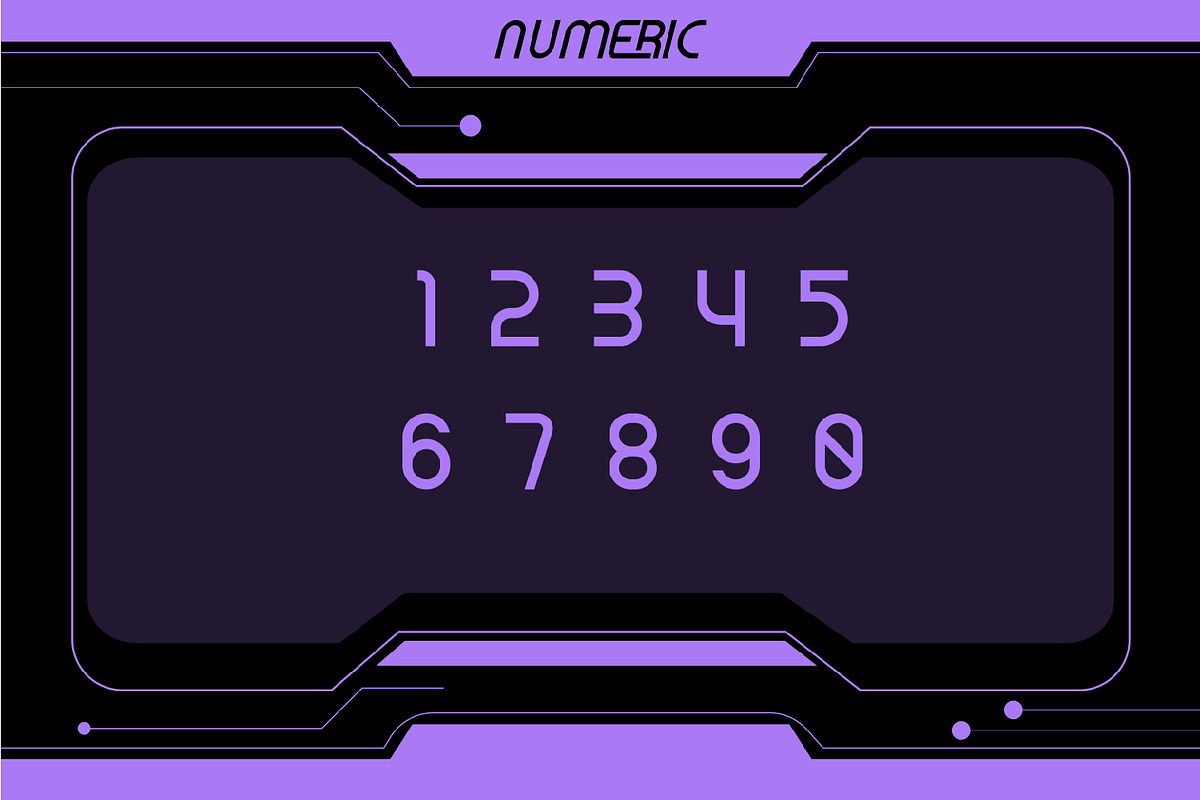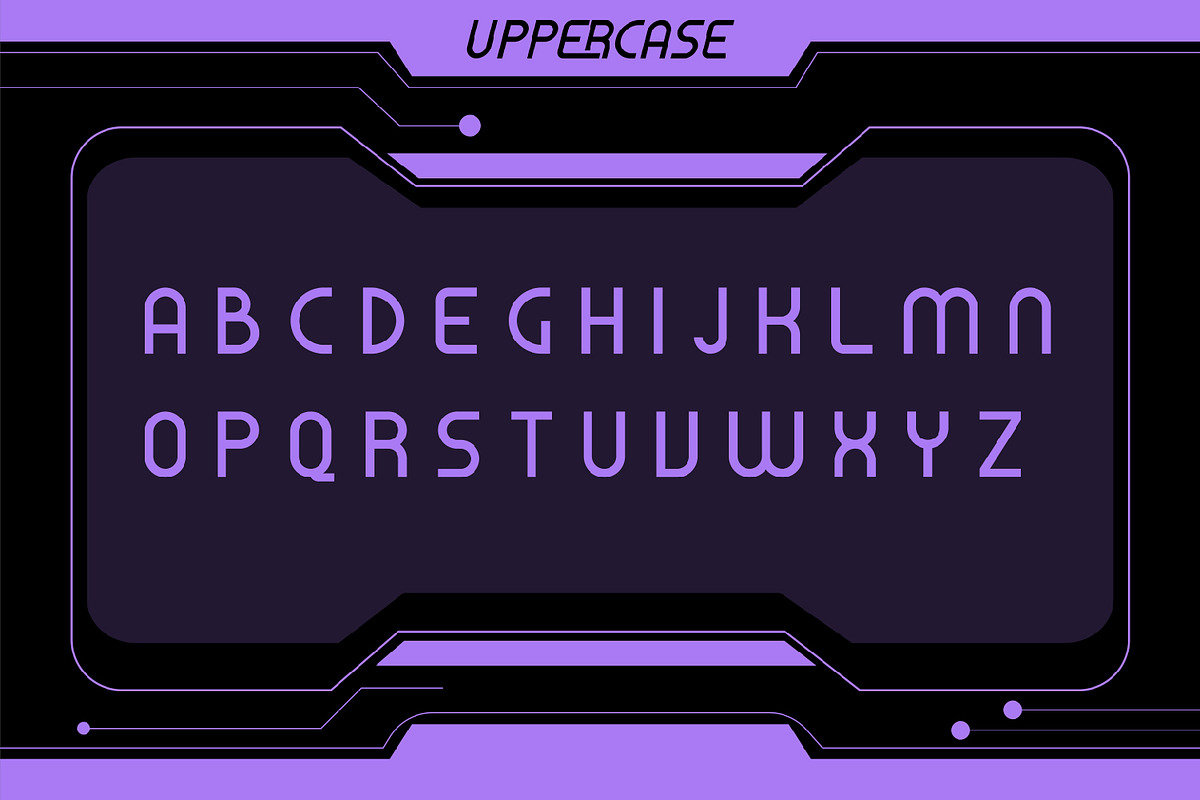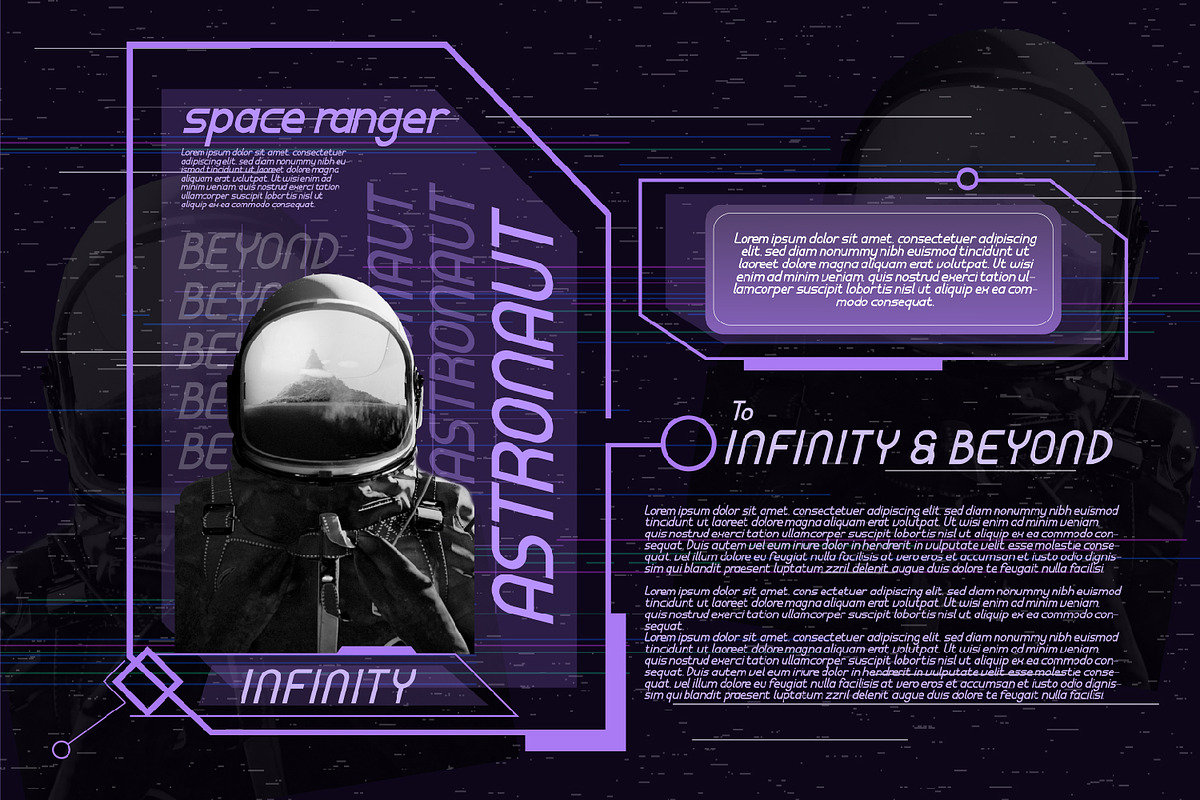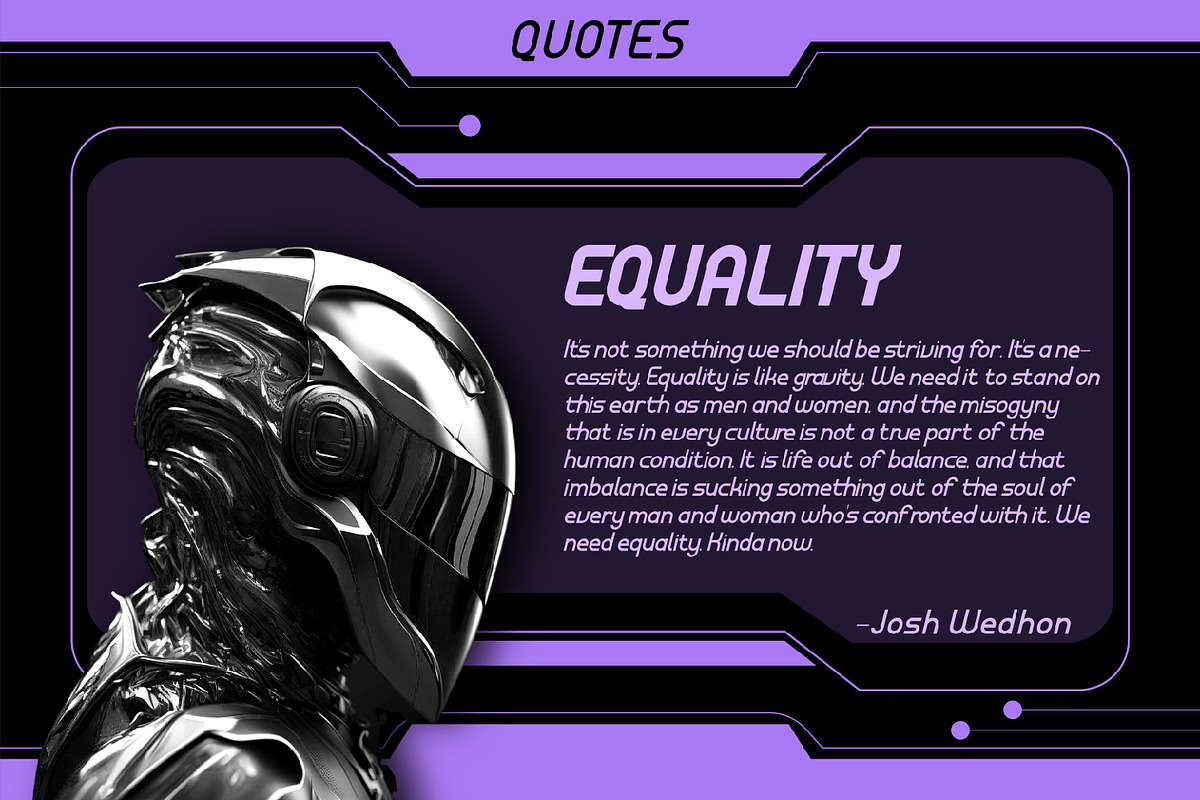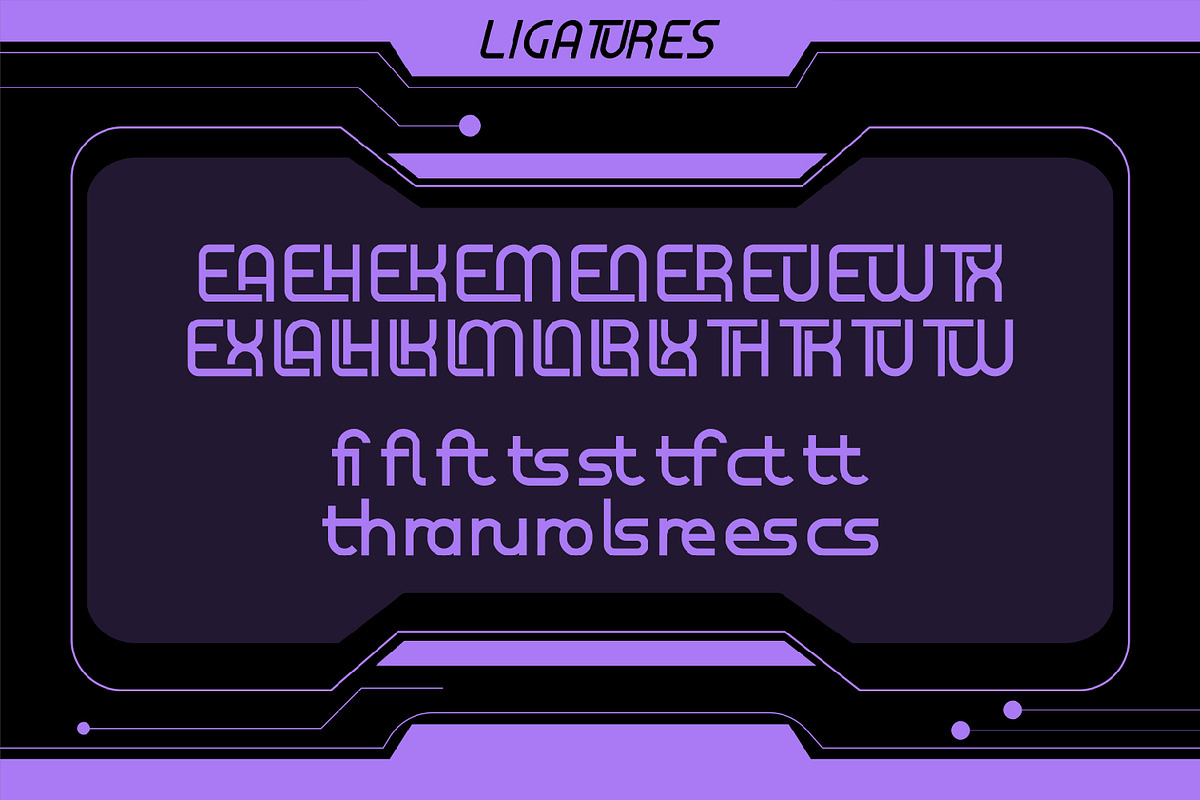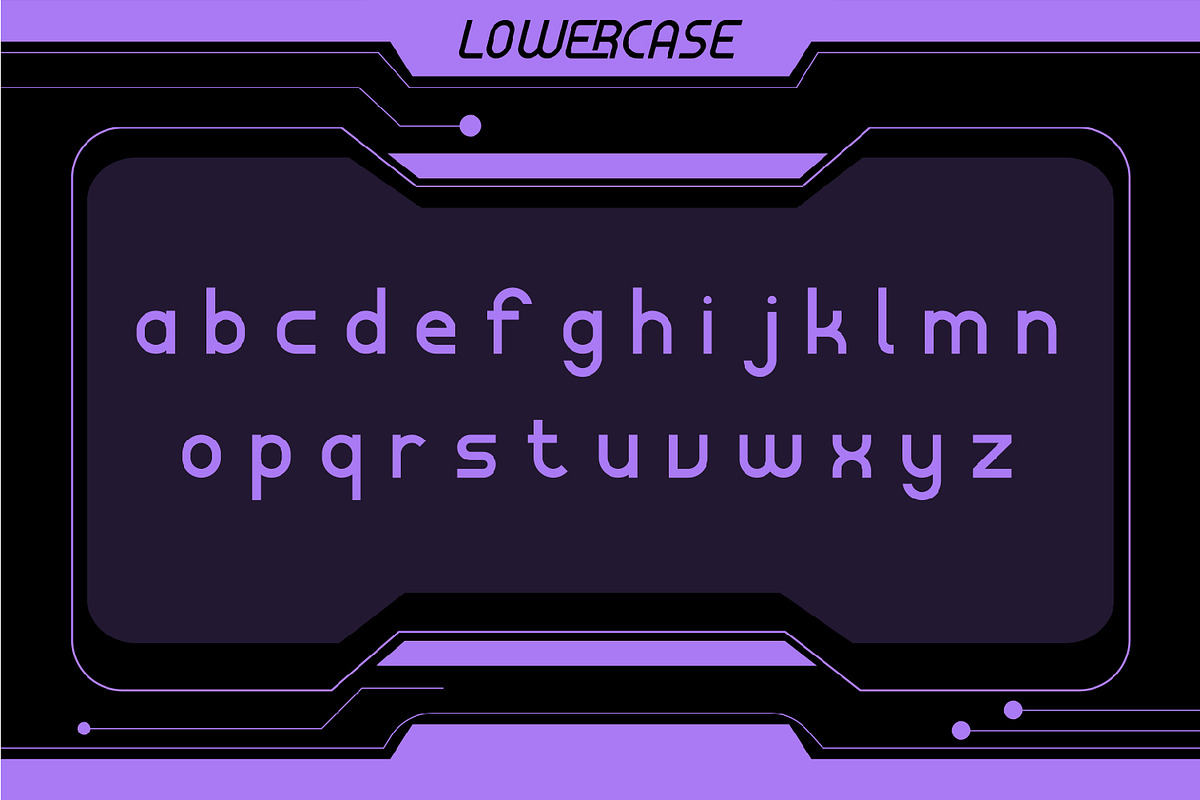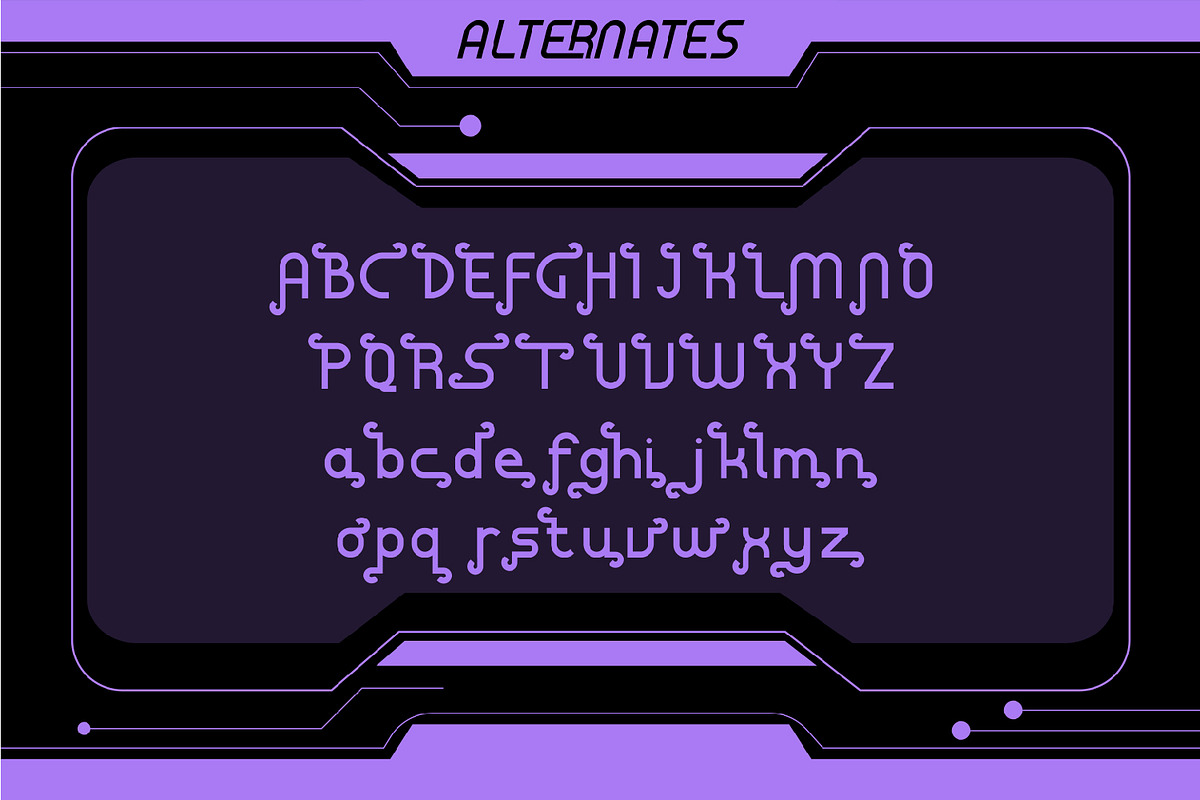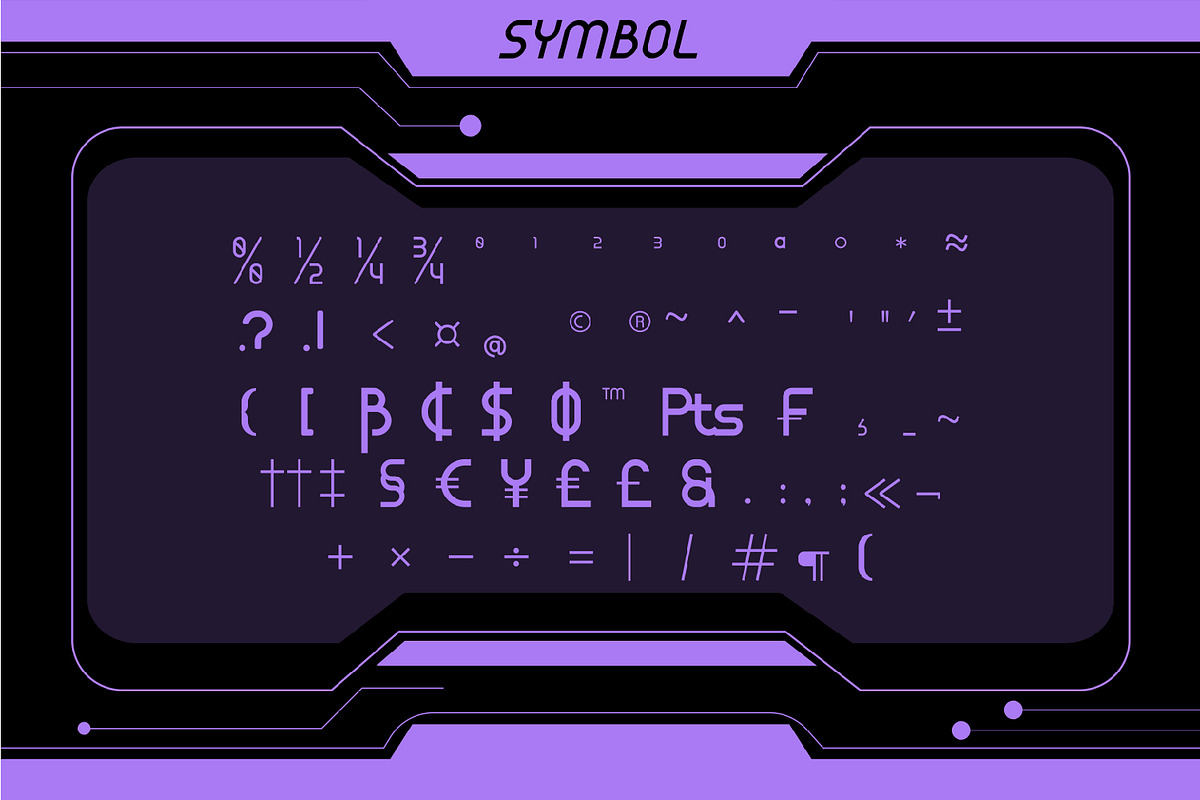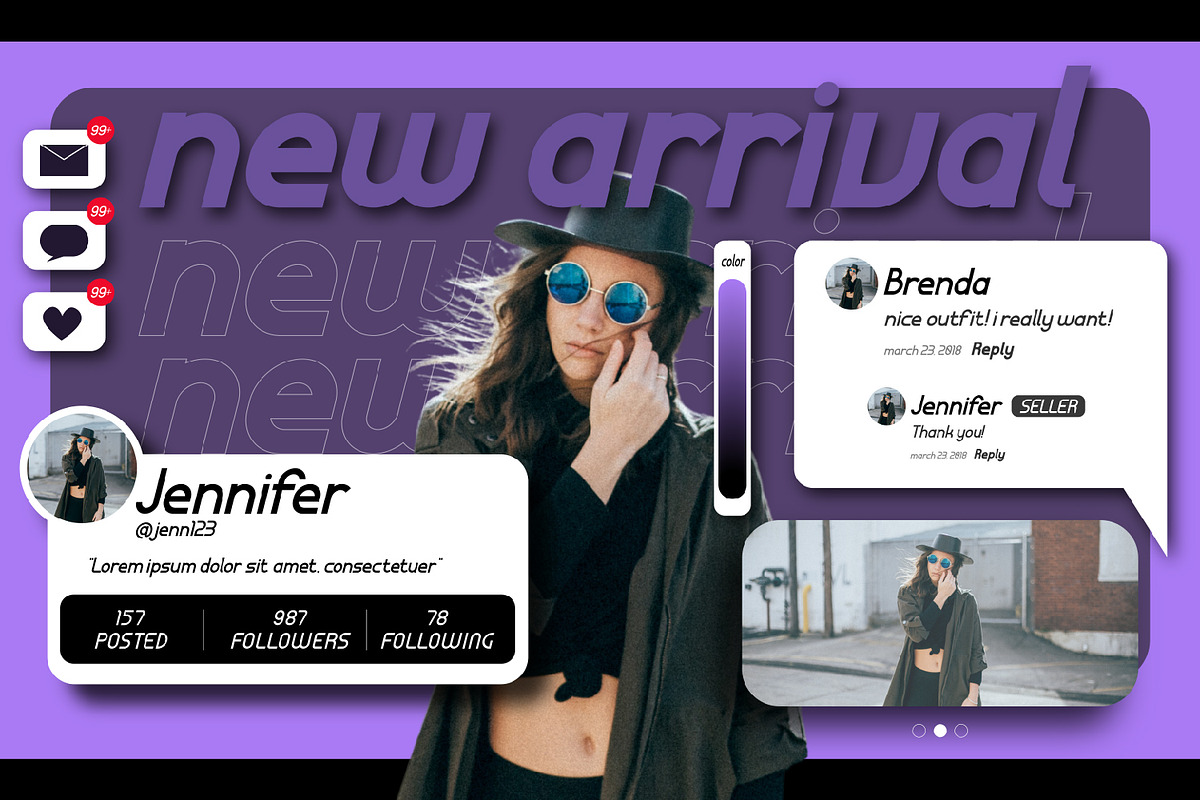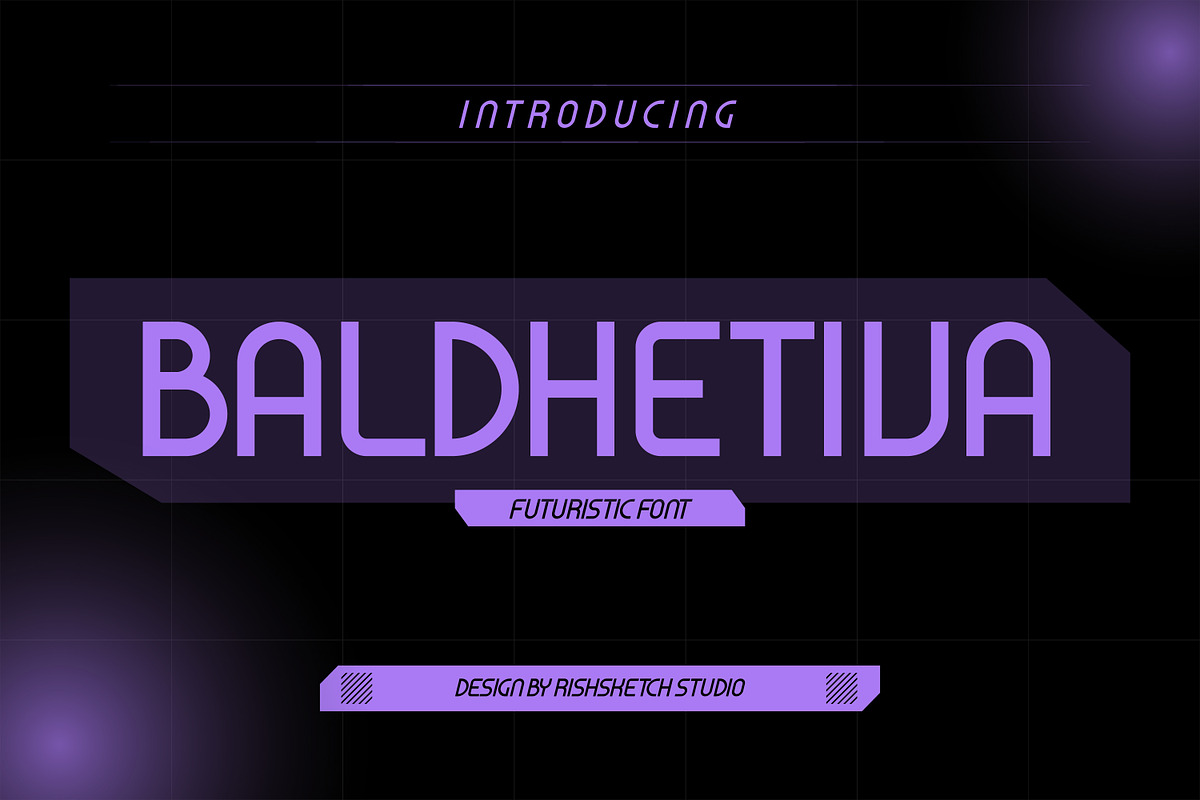
Baldhetiva
Baldhetiva - Futuristic Sans Serif Font, from Rishsketch Studios, is a premium Sans Serif Font, perfect for any project that requires a distinctive, and premium feel.
Ligature, Alternate & Multilingu